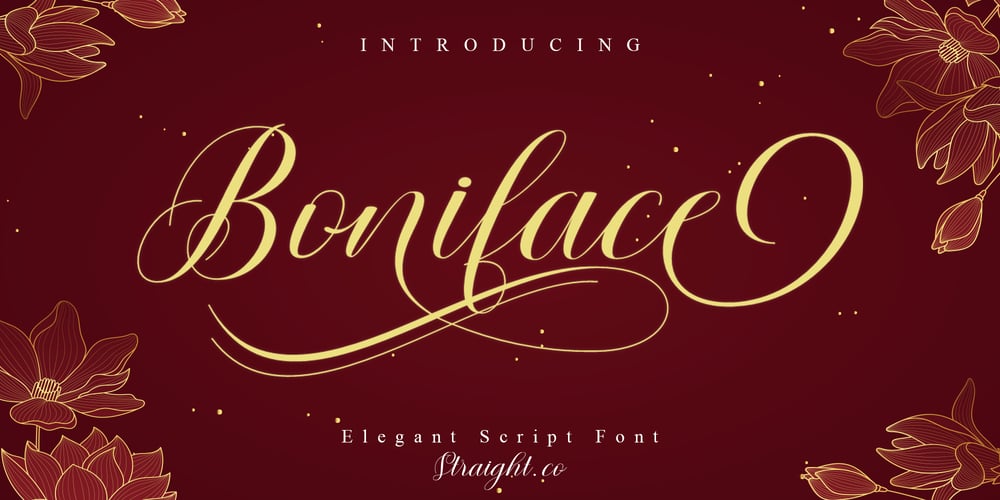
Boniface Font Family was designed by Imam Muhajir and published by Straight.Co. Boniface contains 1 styles and family package options. Proudly PresentBoniface is sweet, bouncy and swirly calligraphy script. Meanwhile, this script is still maintaining its elegance.Boniface is PUA-Encoded, with many swirly extra glyphs to give many options in designing.Barbie is such a fabulous font for any elegant projects, such as wedding invitation, branding, logo, lettering, crafting, and so on.+Can be used in any software, like Adobe Photoshop, Illustrator, SIlhouette Studio, even Microsoft Word, PowerPoint and others.+Multilingual glyphs.Thank You